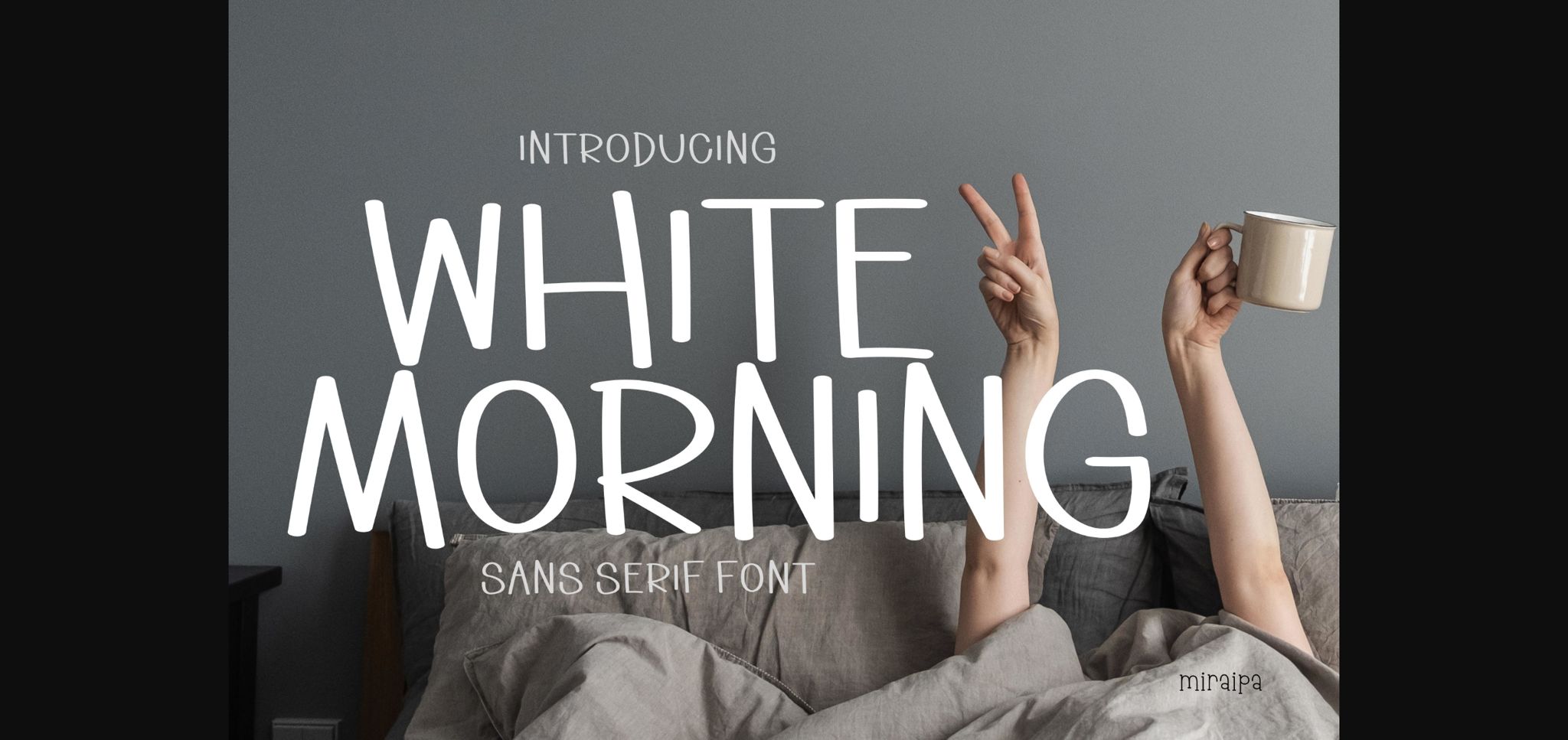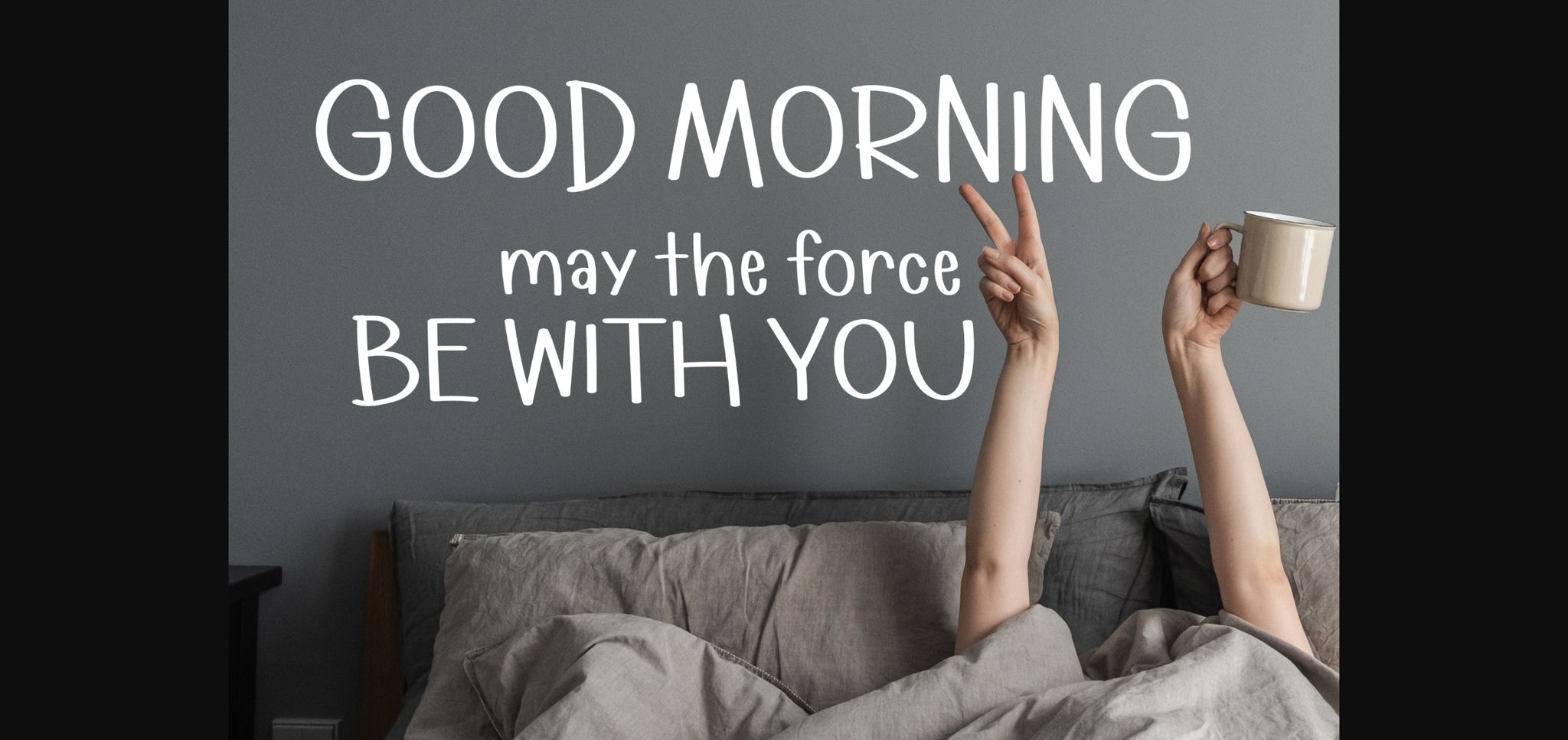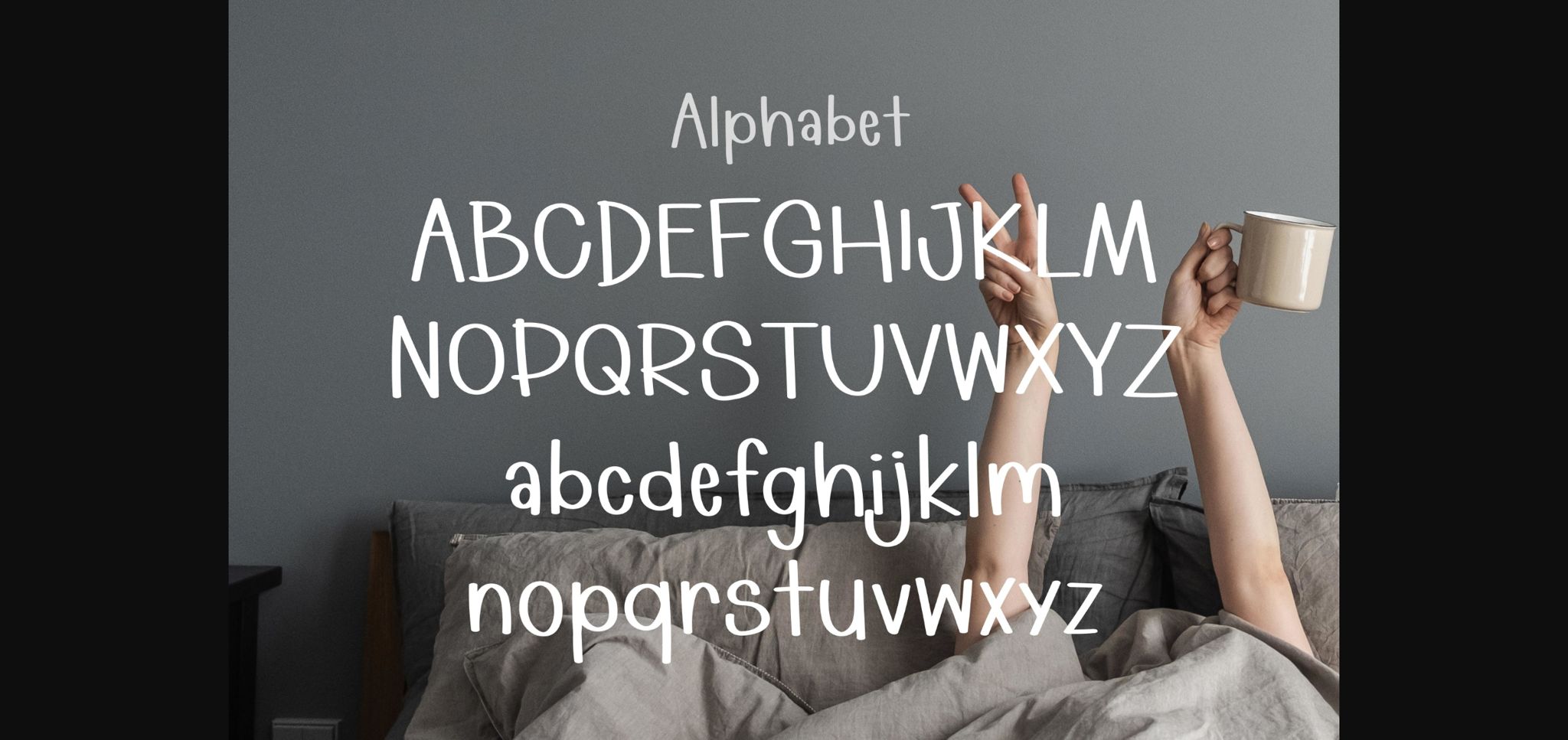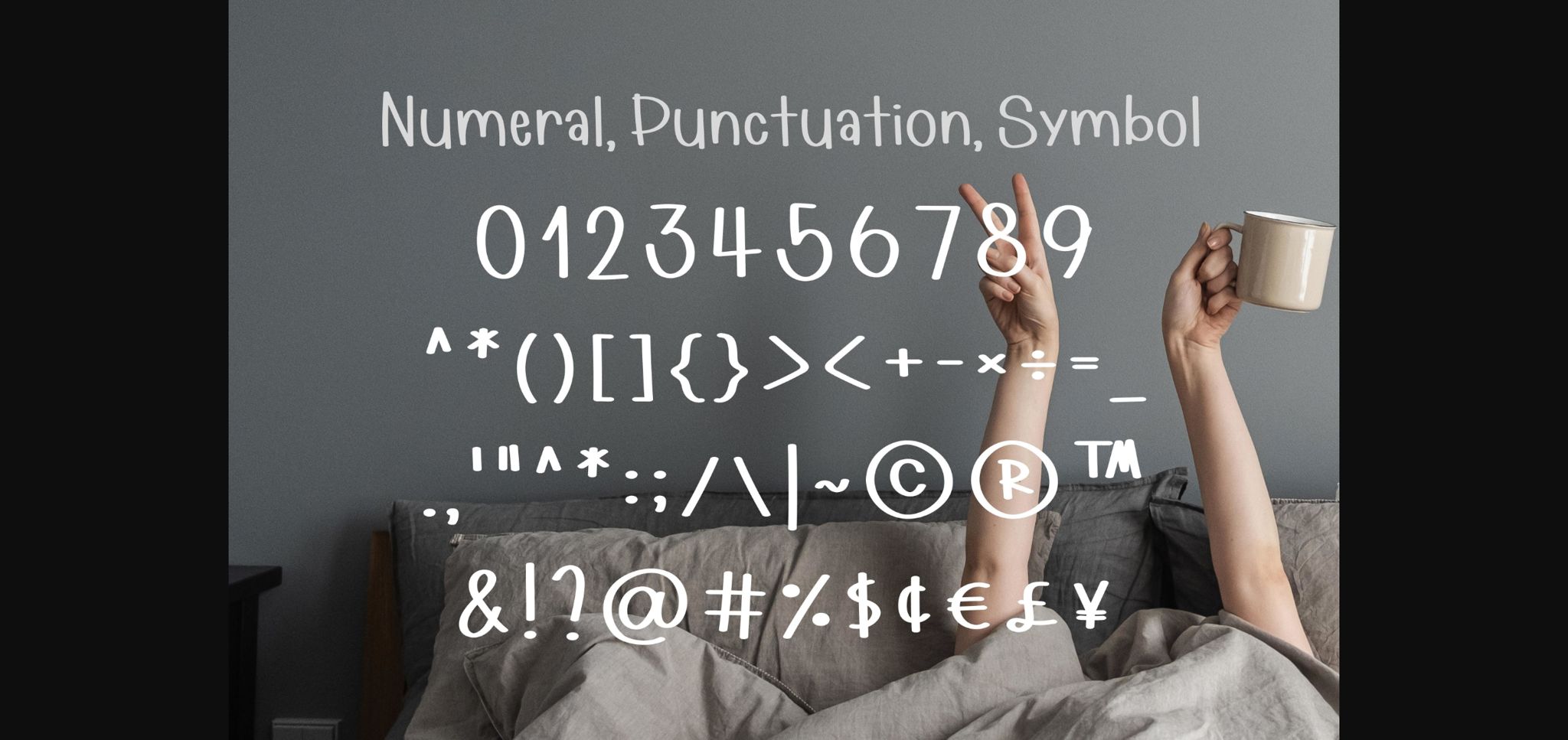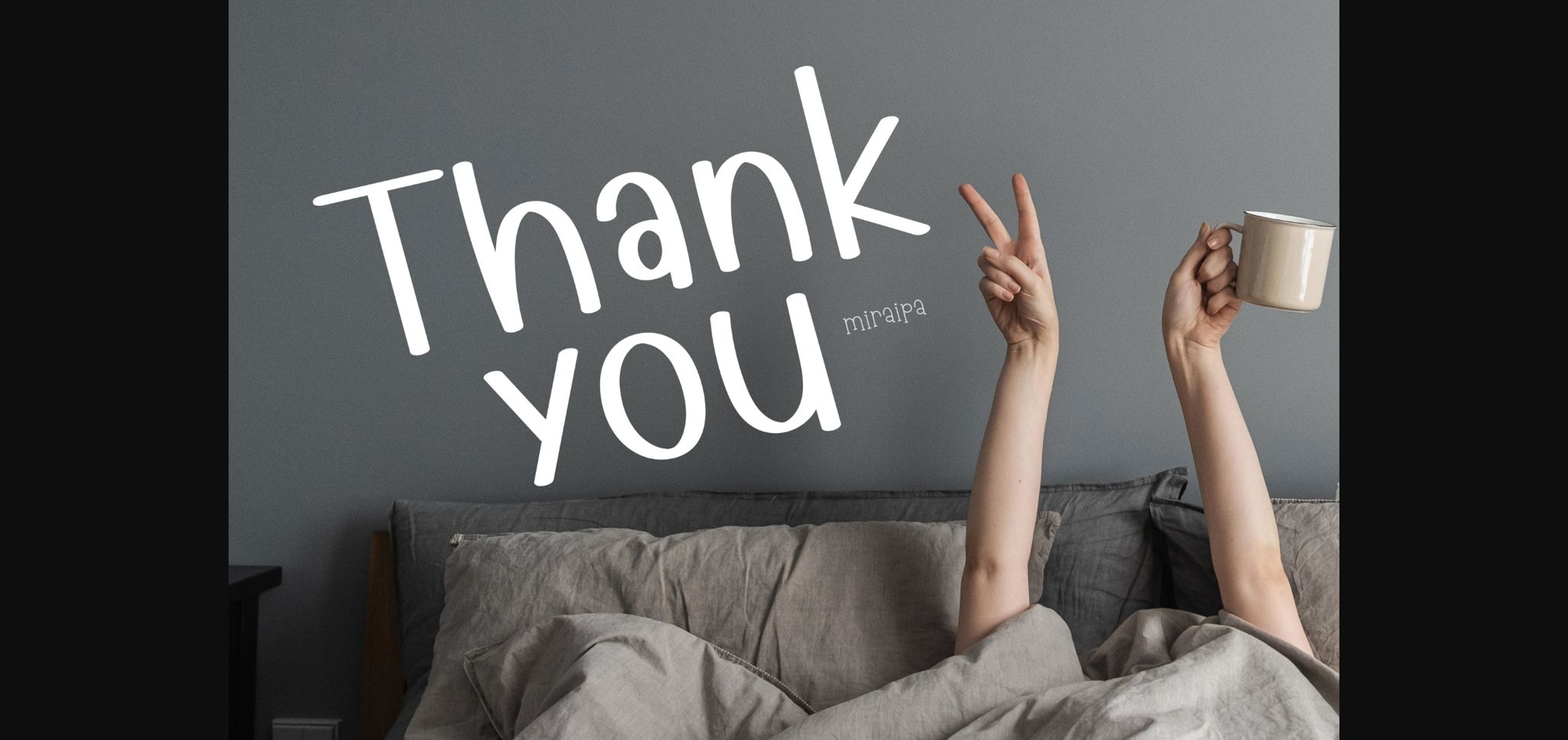
White Morning Font
About White Morning Font
White Morning is a cute and friendly handwritten sans serif font. Its natural and unique style makes it incredibly fitting to a large pool of designs. The only limit is your imagination!